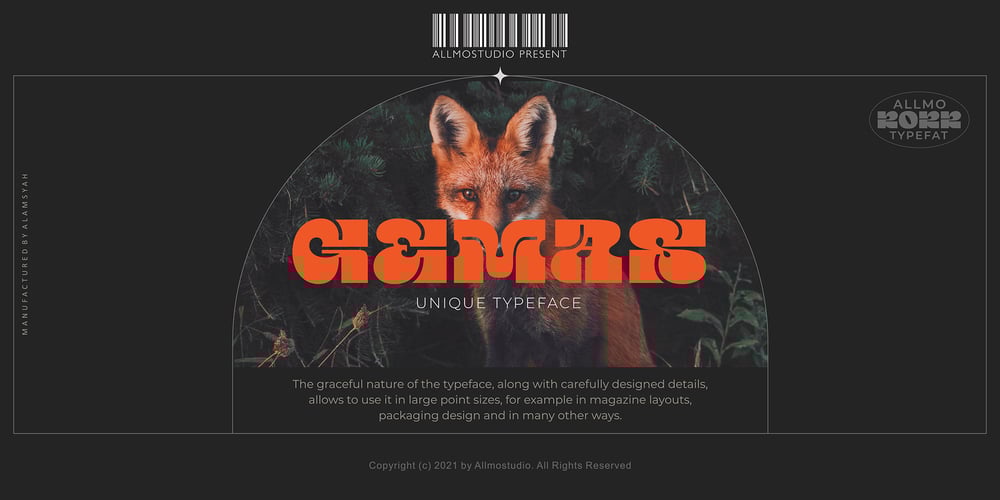
Gemas Font Family was designed by Muhammad Nur Alamsyah and published by Allmo Studio. Gemas contains 1 styles and family package options. Gemas is a wide typeface that looks incredible and has attractiveness when you see it.Each letter shape has been designed to have a character that is easily recorded in the mind.This font has cute and classy characters, clean lines, and smooth curves giving any project an extra touch of class.A serif modern and wide typeface that his own unique style & modern look. This typeface is perfect for large point size, for example in magazine layouts, packaging, book, title design, fashion brand, clothes, lettering, quotes design, and many other ways to your work. A-Z Character Seta-z Character setNumerals & PunctuationsMultilingualThanks, Alamsa